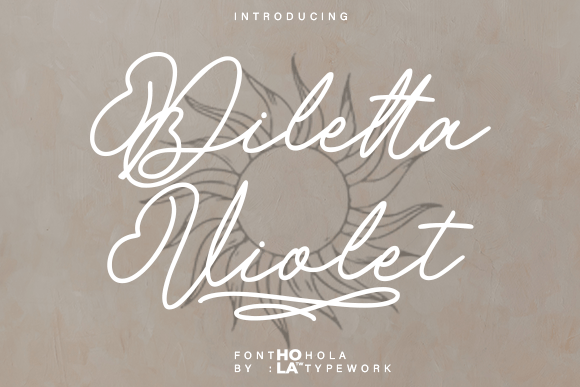
Diletta Violet Font: Elevate Your Designs with Elegance and Simplicity
In the realm of typography, fonts play a pivotal role in conveying messages, evoking emotions, and creating lasting impressions. Among the myriad of fonts available, Diletta Violet stands out as a beacon of elegance and simplicity. This mono line script font, adorned with delicate flourishes, has been meticulously designed to cater to a wide array of design projects, making it an indispensable tool for designers and creatives alike.
The Essence of Diletta Violet Font
Diletta Violet is not just a font; it’s an experience. It brings to the table a unique blend of sophistication and ease of use, making it perfect for projects that demand a touch of elegance. From advertisements and branding to wedding invitations and personal cards, Diletta Violet ensures that your work stands out with style and grace.
Key Features of Diletta Violet
- Elegant Mono Line Design: The font features a sleek mono line design that exudes modernity and sophistication.
- Delicate Flourishes: Adorned with delicate flourishes, Diletta Violet adds a touch of elegance to any text, making it perfect for special occasions and high-end branding.
- Simplicity and Versatility: Designed with simplicity in mind, this font is incredibly versatile, suitable for a wide range of design projects.
- Easy to Use: Despite its elegant appearance, Diletta Violet is easy to use, making it accessible for designers of all skill levels.
Applications of Diletta Violet Font
The versatility of Diletta Violet makes it suitable for various applications. Here are some of the ways you can use this elegant font:
1. Advertising and Marketing
In the competitive world of advertising, standing out is crucial. Diletta Violet, with its elegant and modern design, can help your advertisements grab attention and convey your message with style. Whether it’s a billboard, a magazine ad, or a digital banner, this font ensures your message is delivered with elegance and impact.
2. Branding and Digital Presence
Your brand’s digital persona is often the first point of contact with your audience. Using Diletta Violet for your brand’s logotype, website headers, or social media posts can elevate your digital presence, projecting an image of sophistication and professionalism.
3. Wedding Invitations and Stationery
For wedding invitations, thank you cards, or any stationery, Diletta Violet offers a touch of class and romance. Its delicate flourishes and elegant lines make it perfect for creating memorable and beautiful stationery that reflects the special nature of the occasion.
4. Graphic Design Projects
From brochures and flyers to posters and banners, Diletta Violet can add a level of sophistication to any graphic design project. Its versatility ensures it can be used in a variety of contexts, from formal events to corporate communications.
Why Choose Diletta Violet?
With so many fonts available, why should Diletta Violet be your choice? Here are a few compelling reasons:
- Unique yet Versatile: Diletta Violet offers a unique aesthetic that can be applied across various design projects without looking out of place.
- Elegance and Readability: It strikes a perfect balance between elegance and readability, ensuring your message is both stylish and clear.
- Time-Saving: Given its ease of use, Diletta Violet can significantly save design time, allowing for more projects to be completed efficiently.
How to Use Diletta Violet Effectively
To make the most out of Diletta Violet, consider the following tips:
- Pair with Complementary Fonts: For body text, pair Diletta Violet with clean, sans-serif fonts to maintain readability and create visual hierarchy.
- Adjust Size and Color Wisely: Use size and color variations to emphasize key points and guide the viewer’s eye through your design.
- Experiment with Flourishes: Don’t be afraid to experiment with the font’s flourishes to add a personal touch to your designs.
Diletta Violet Font is more than just a typeface; it’s a tool that can elevate your designs, adding a touch of elegance and sophistication. Whether you’re a professional designer or a DIY enthusiast, Diletta Violet offers the perfect blend of style, versatility, and ease of use. By incorporating Diletta Violet into your design projects, you’re not just choosing a font; you’re choosing to make a statement.
FAQs About Diletta Violet Font
Q: What is Diletta Violet Font?
A: Diletta Violet is a mono line script font featuring delicate flourishes, designed for ease of use across various design projects.
Q: Is Diletta Violet suitable for body text?
A: While Diletta Violet is elegant and highly readable, it’s best used for headings and titles. For body text, consider pairing it with a clean, sans-serif font for better readability.
Q: How can I get the most out of Diletta Violet?
A: Experiment with different sizes, colors, and pairings with other fonts. Also, don’t hesitate to play around with the font’s flourishes to add a unique touch to your designs.